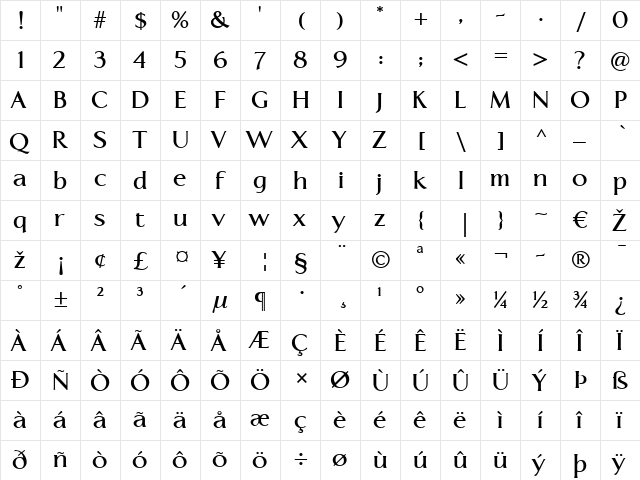
LTAperto Roman Bold
Design Context for LTAperto Roman Typeface
LTAperto Roman is a composed and adaptable typeface that performs quietly and consistently across a wide range of design contexts. Its bold stroke weight gives it real presence on the page.